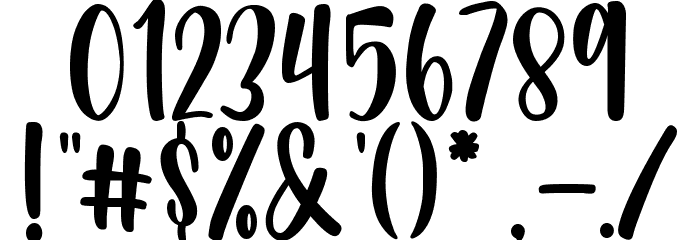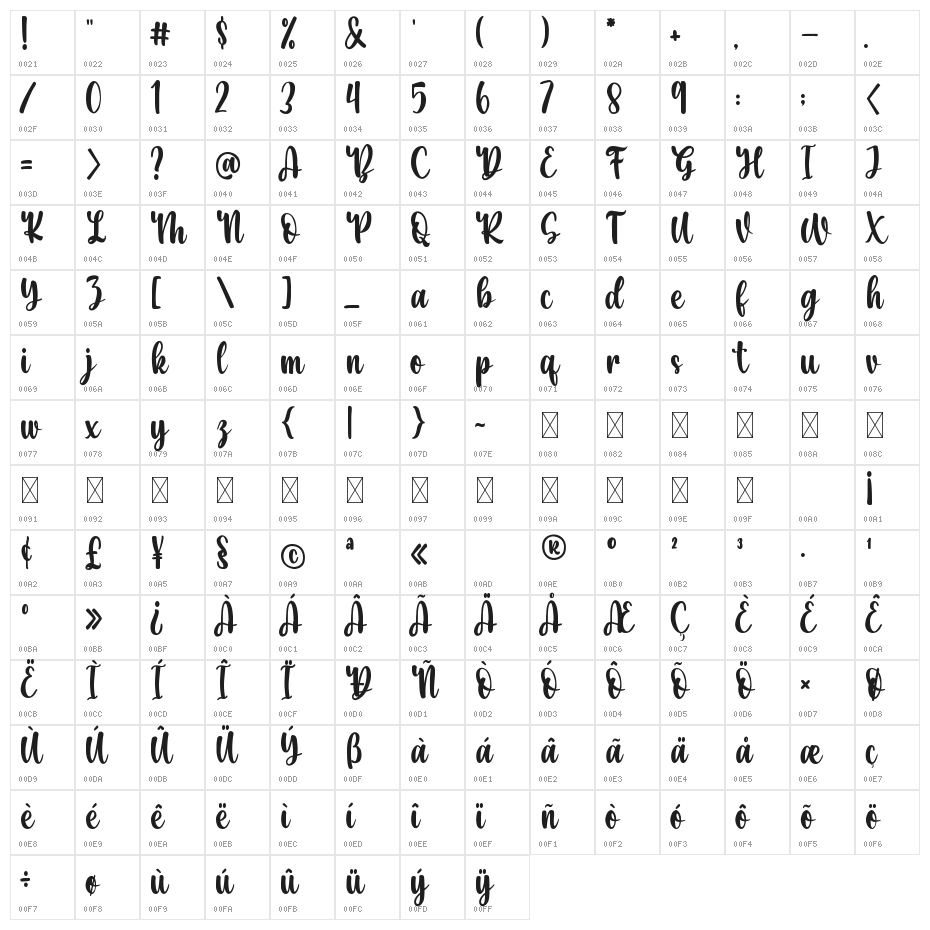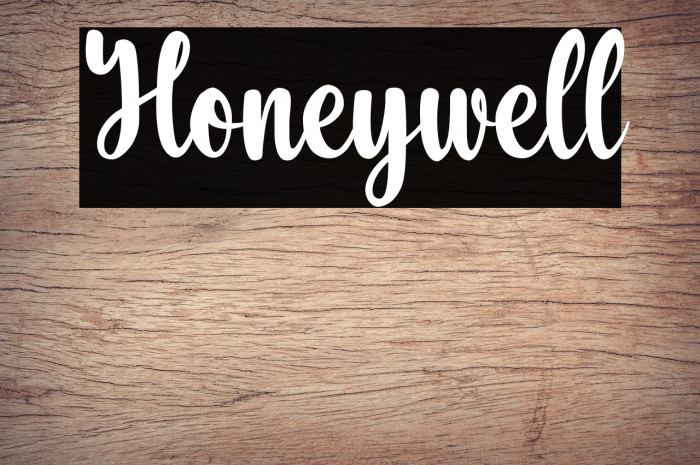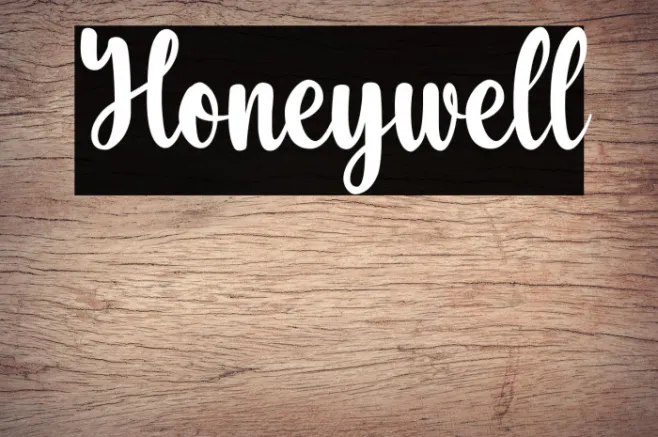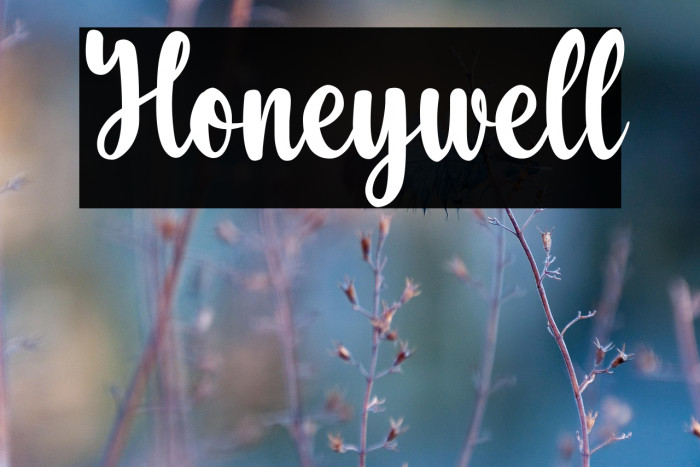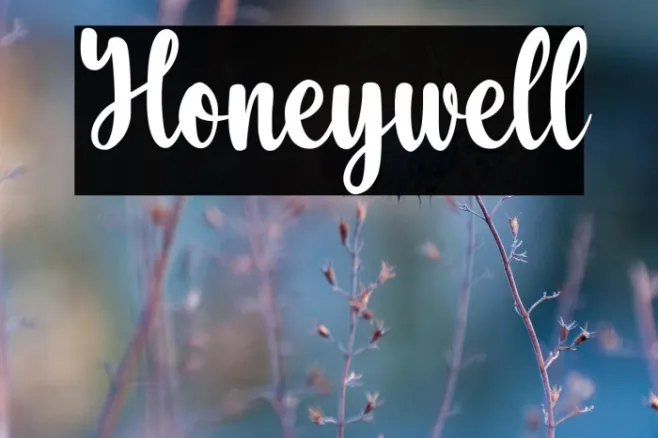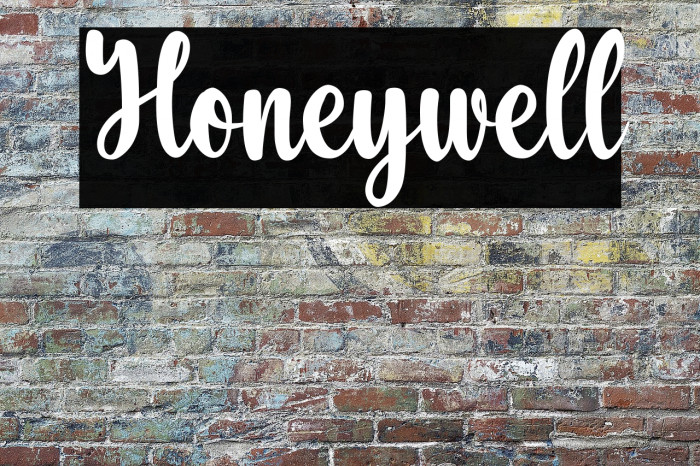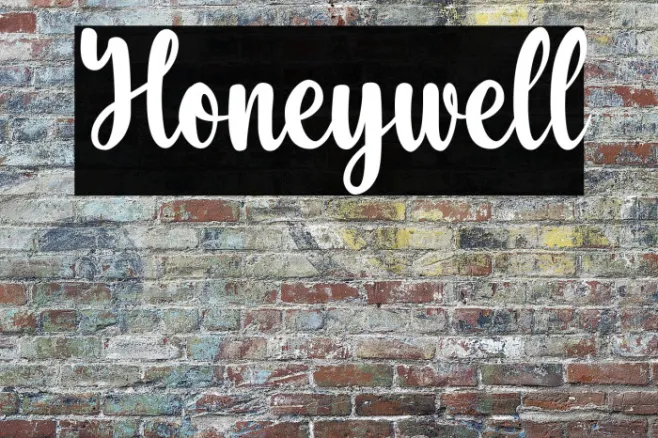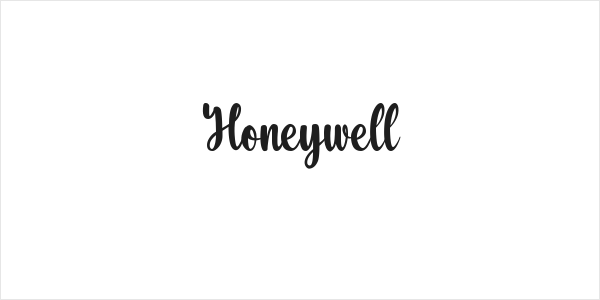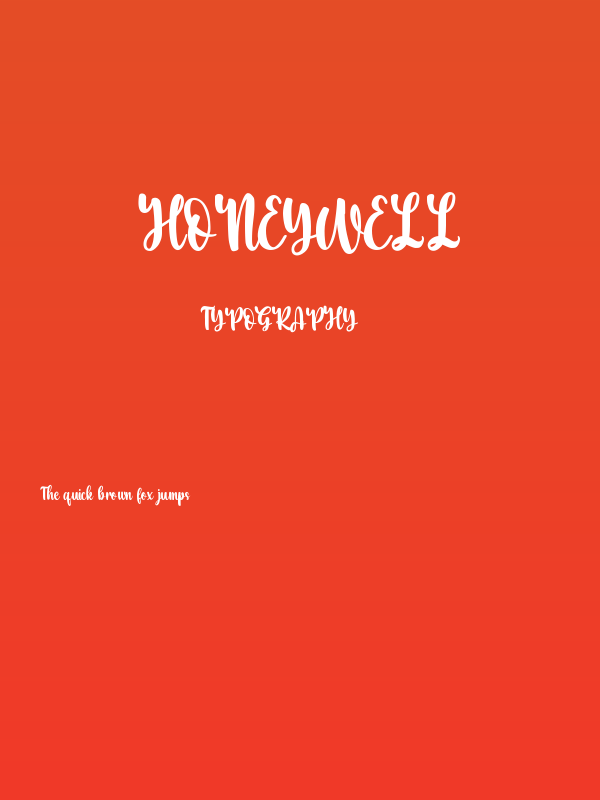
Honeywell Font
Honeywell Description
This font features a lively and expressive script style, characterized by its bold and flowing letterforms. The uppercase letters are elegantly crafted with a sense of movement, while the lowercase letters maintain a consistent rhythm and balance. The numerals are distinct and easy to read, complementing the overall aesthetic. Special characters are thoughtfully designed, adding to the font's versatility. The strokes are thick and consistent, providing a strong visual impact. This font is ideal for projects that require a personal and artistic touch, such as invitations, branding, and creative design work.